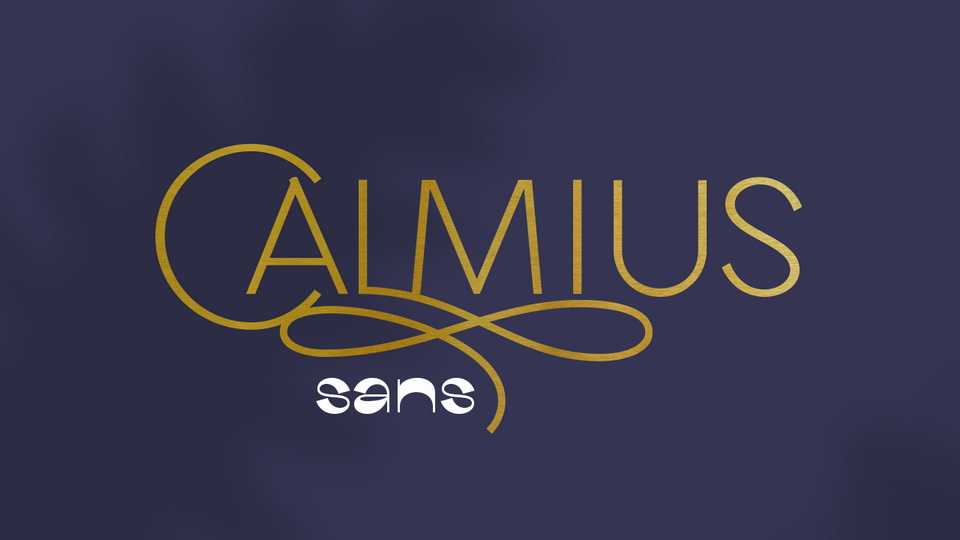
Download Calmius font, a sans serif typeface that represents perfectly modern and vintage aesthetics. Calmius is perfect for wedding elegant invitation cards, beauty and fashion package design, etc.
Designer: Andrey Dykun